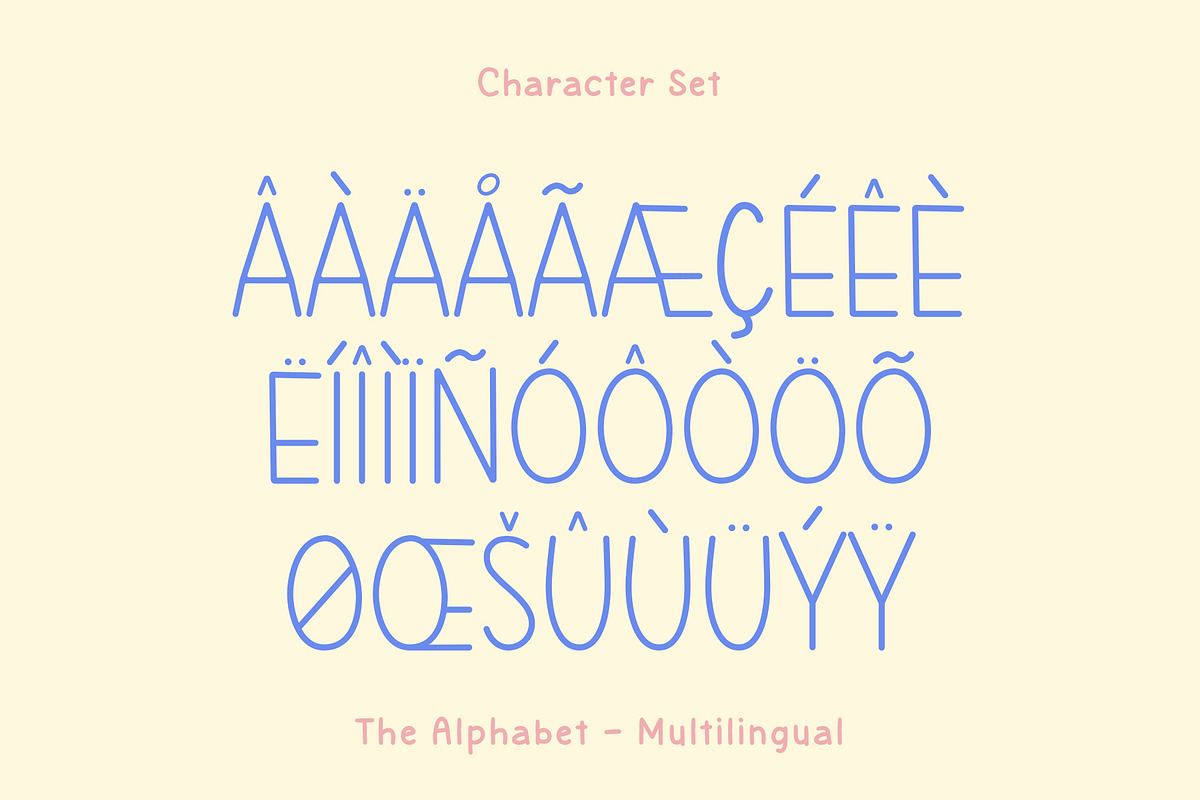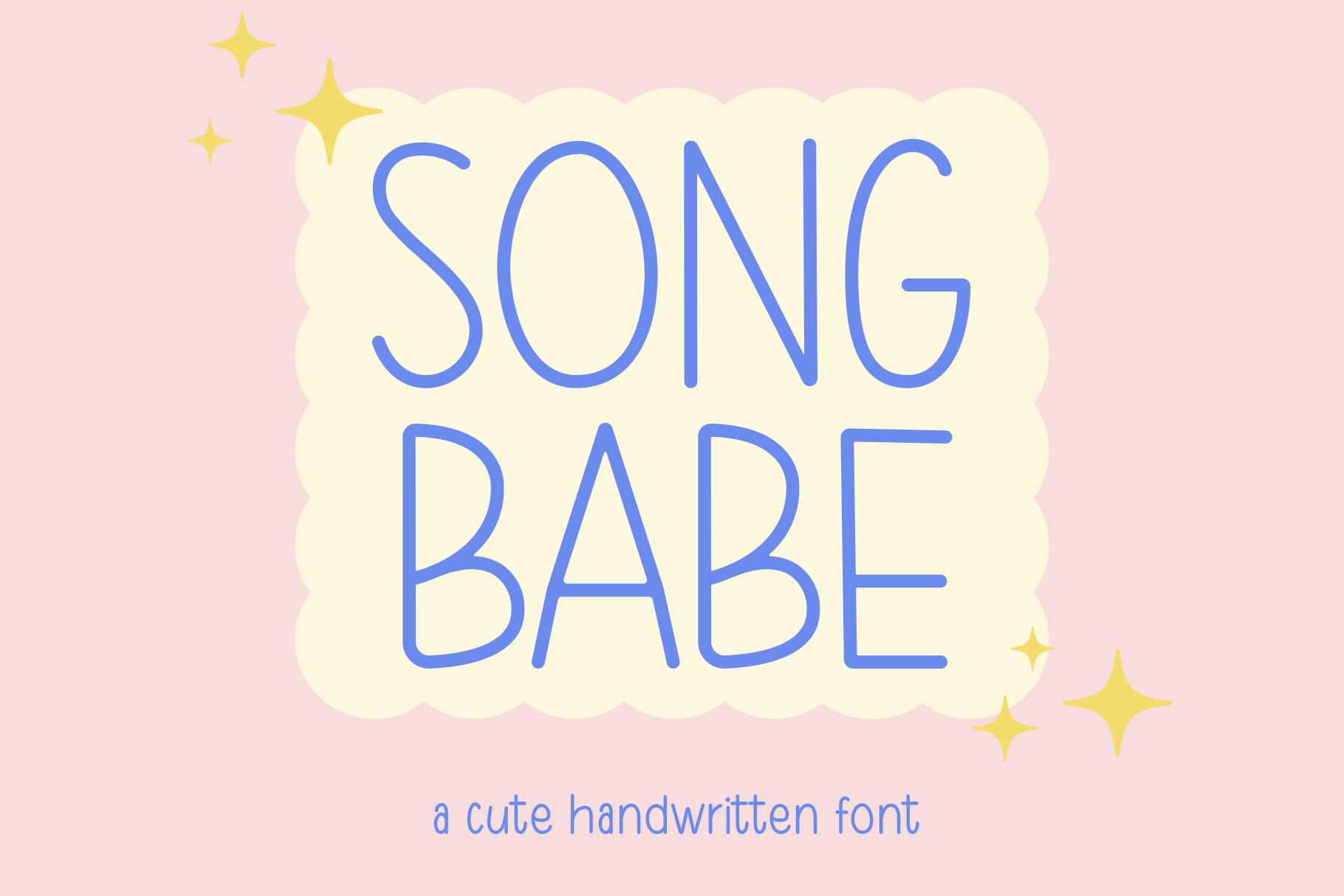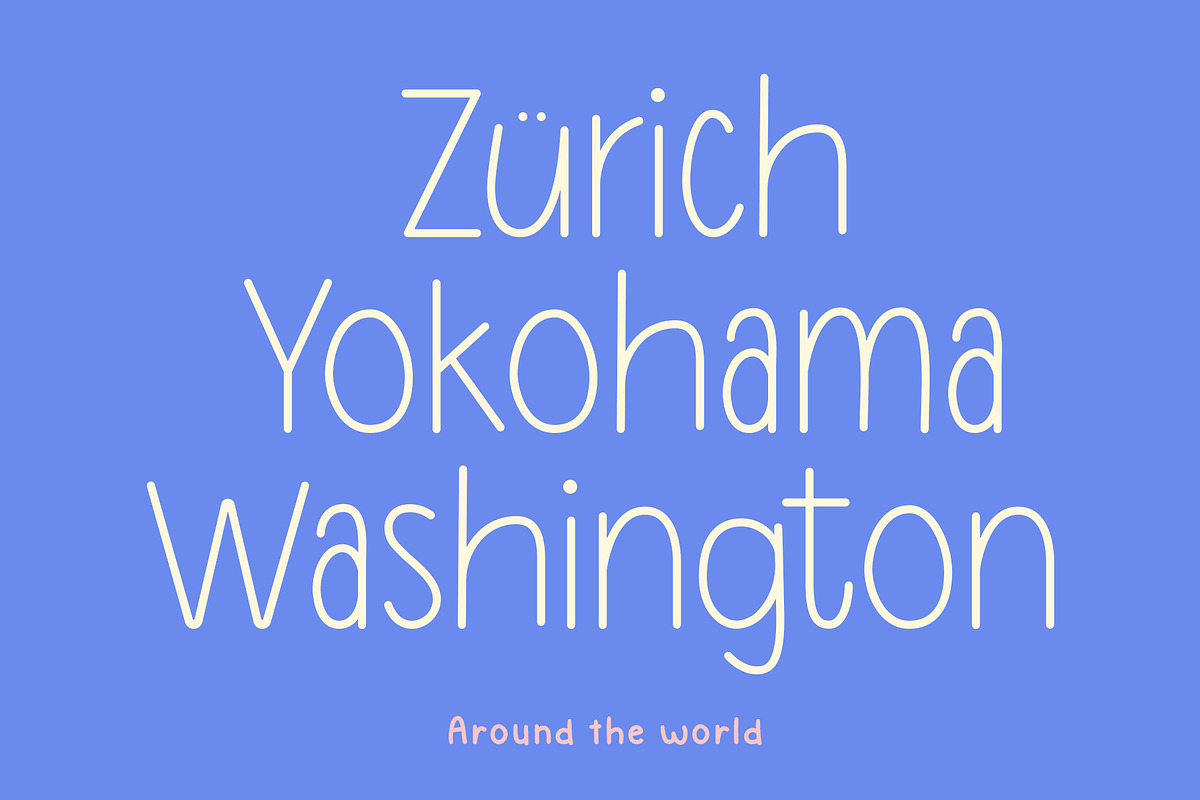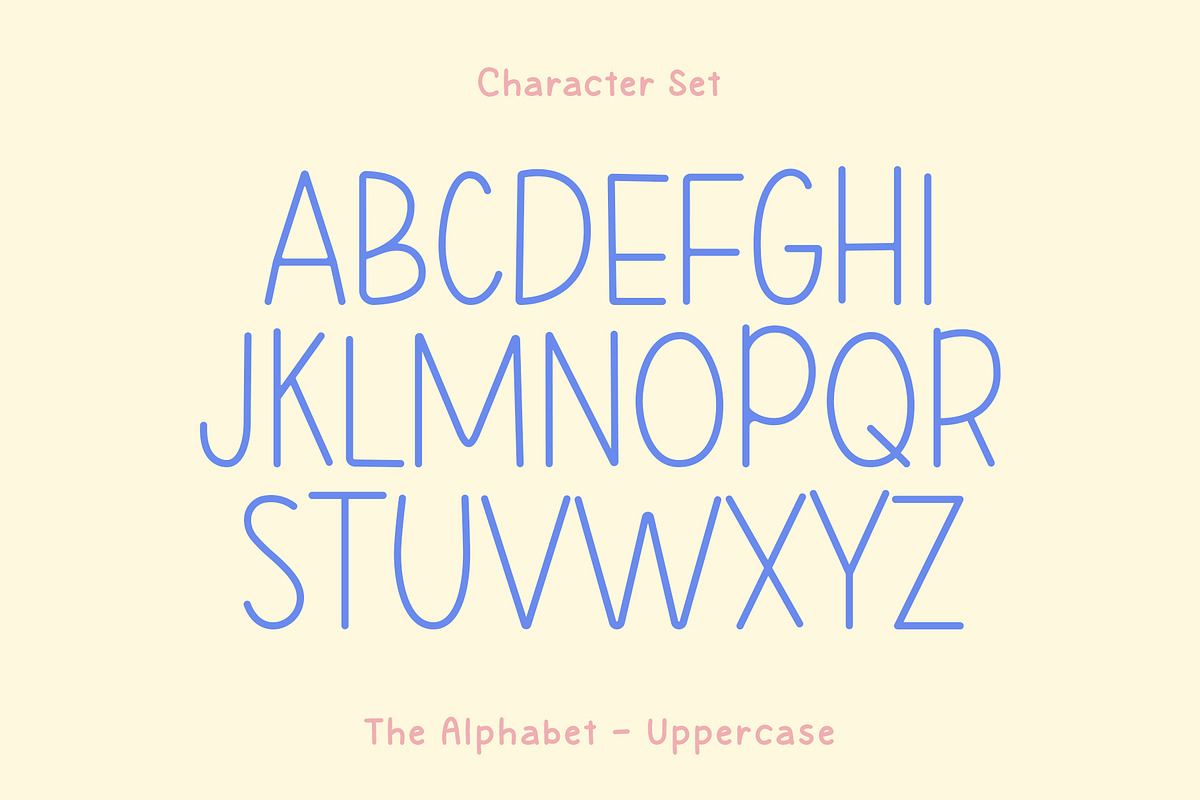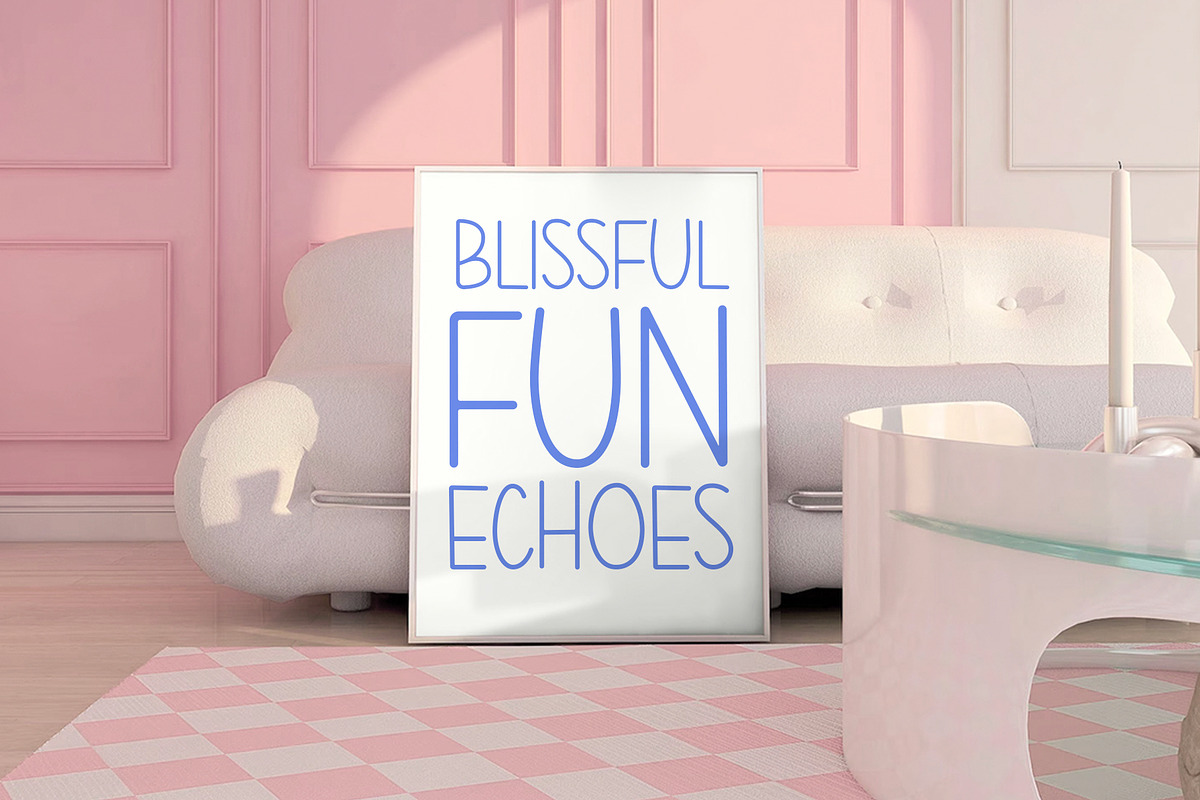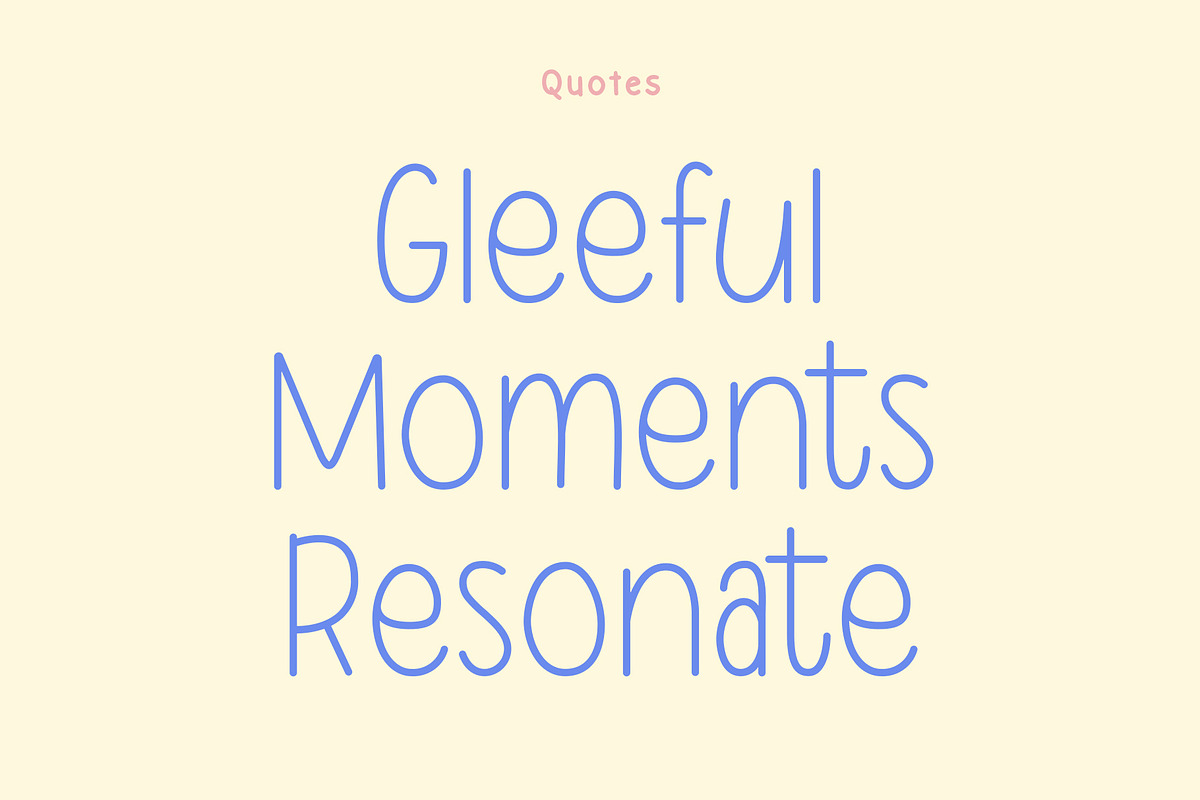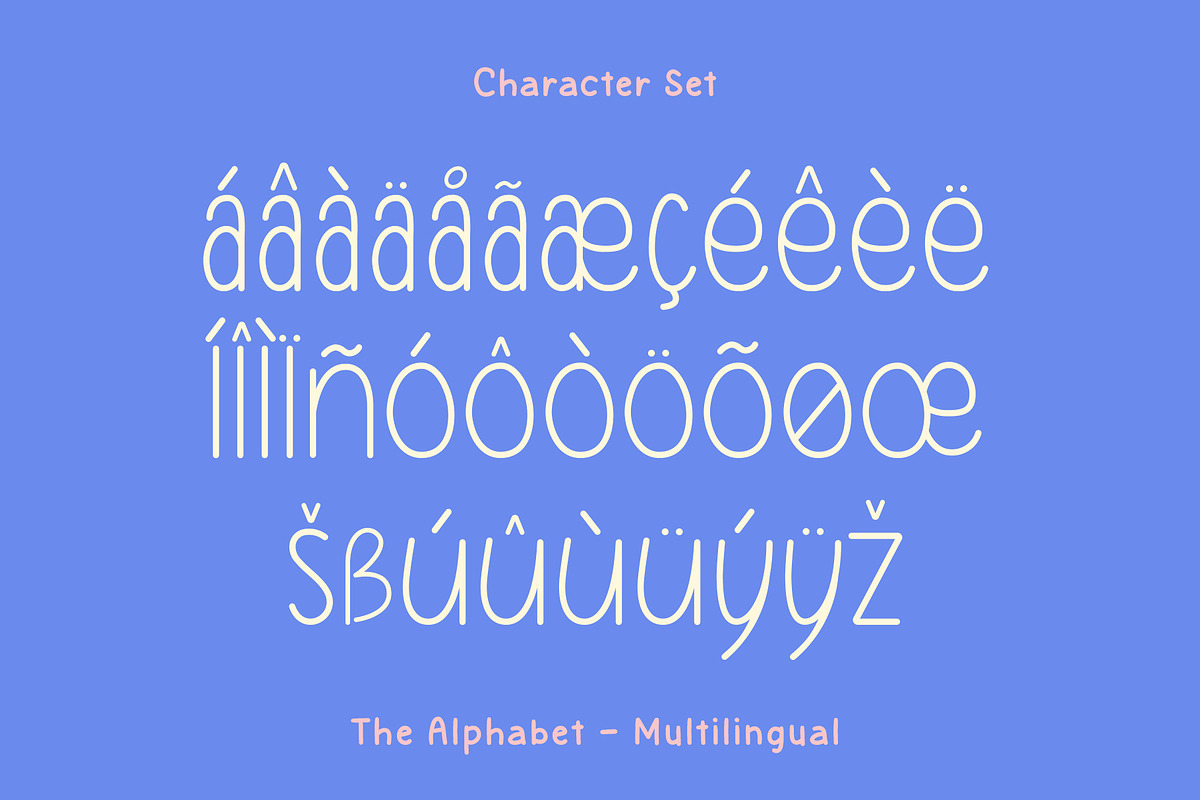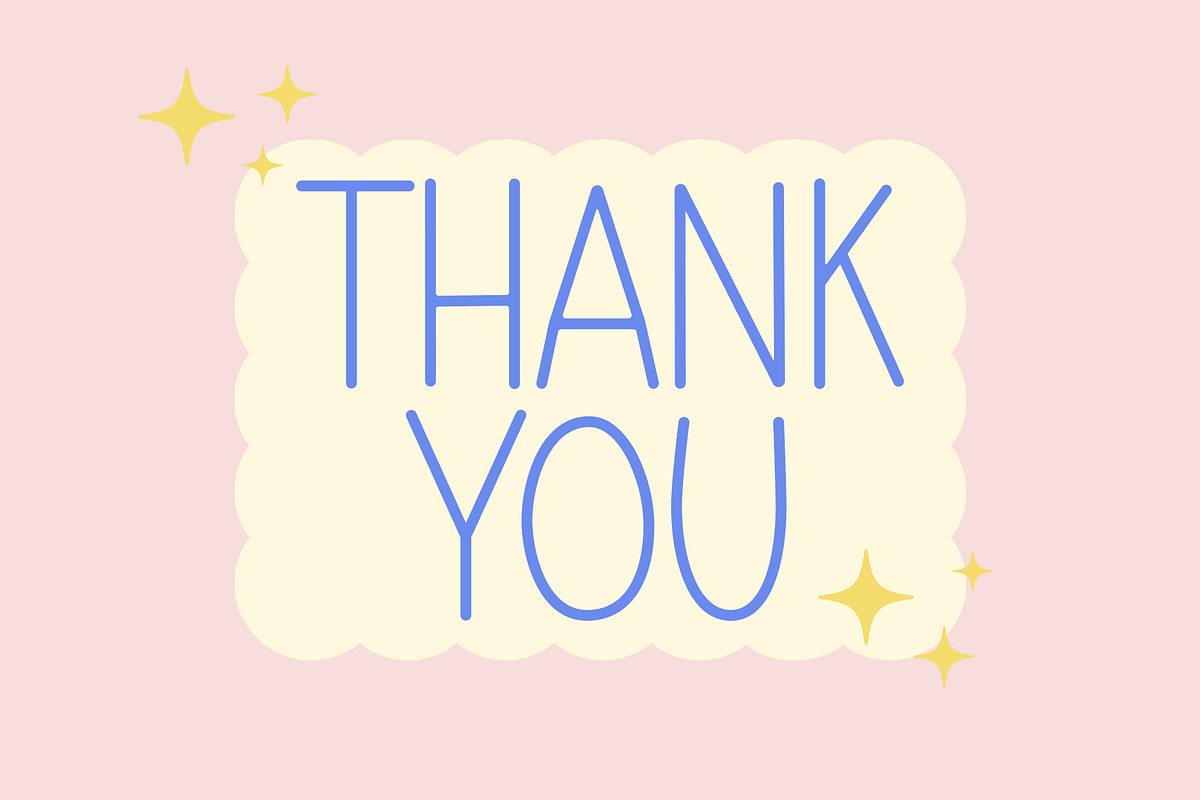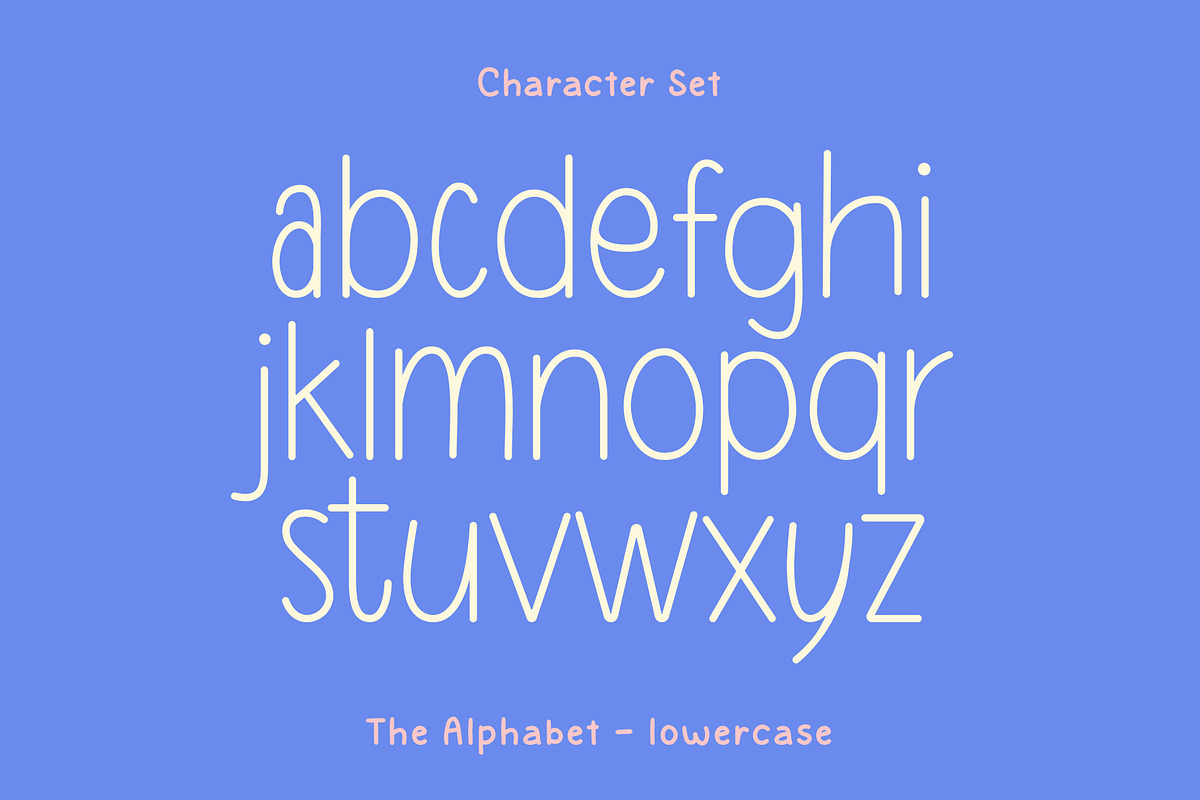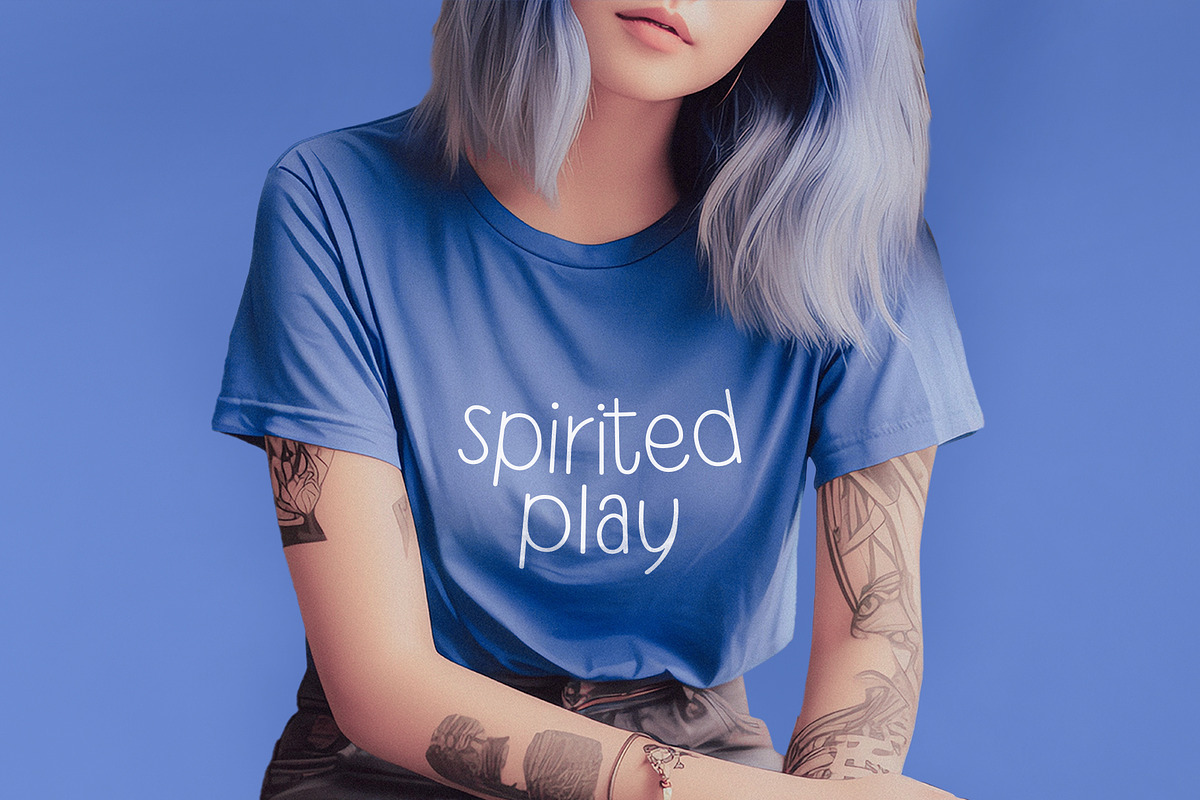
Song Babe - Handwritten Font
Song Babe is a delightful handwritten font exuding charm, simplicity, and playfulness. Its whimsical strokes and curves evoke a sense of youthful energy and creativity, making it perfect for projects aimed at capturing attention with a touch of innocence. This typeface available in SVG format, compatible with advanced tools such as Cricut and Glowforge, and for use in Procreate.
Whether used for invitations, greeting cards, or branding materials, Song Babe infuses a sense of fun and warmth into any design, inviting viewers to engage with its cheerful demeanor.